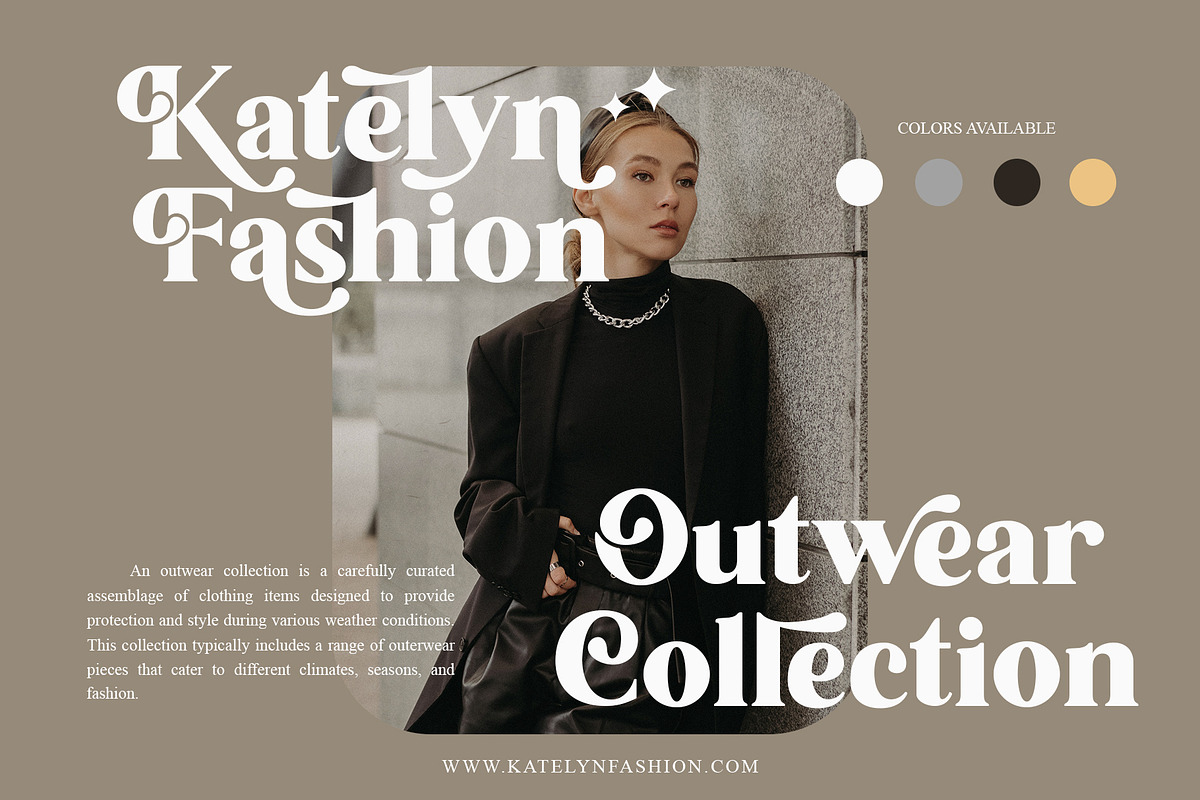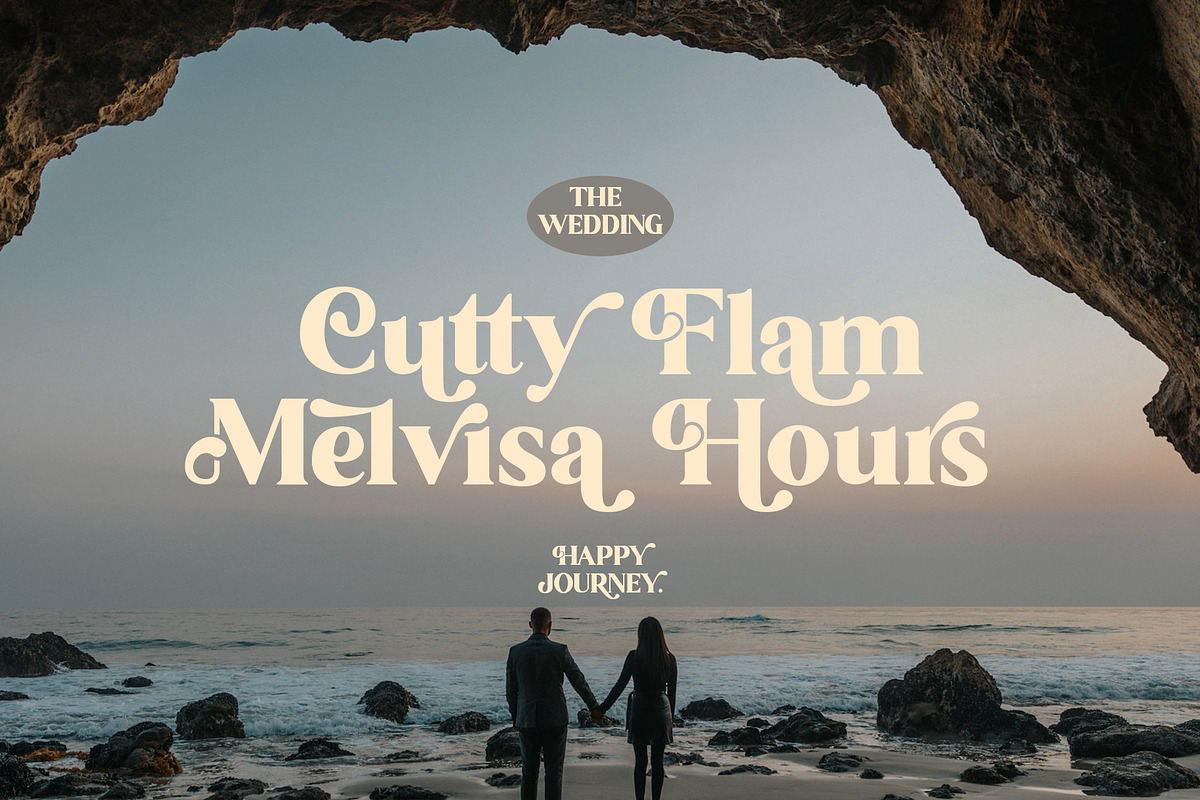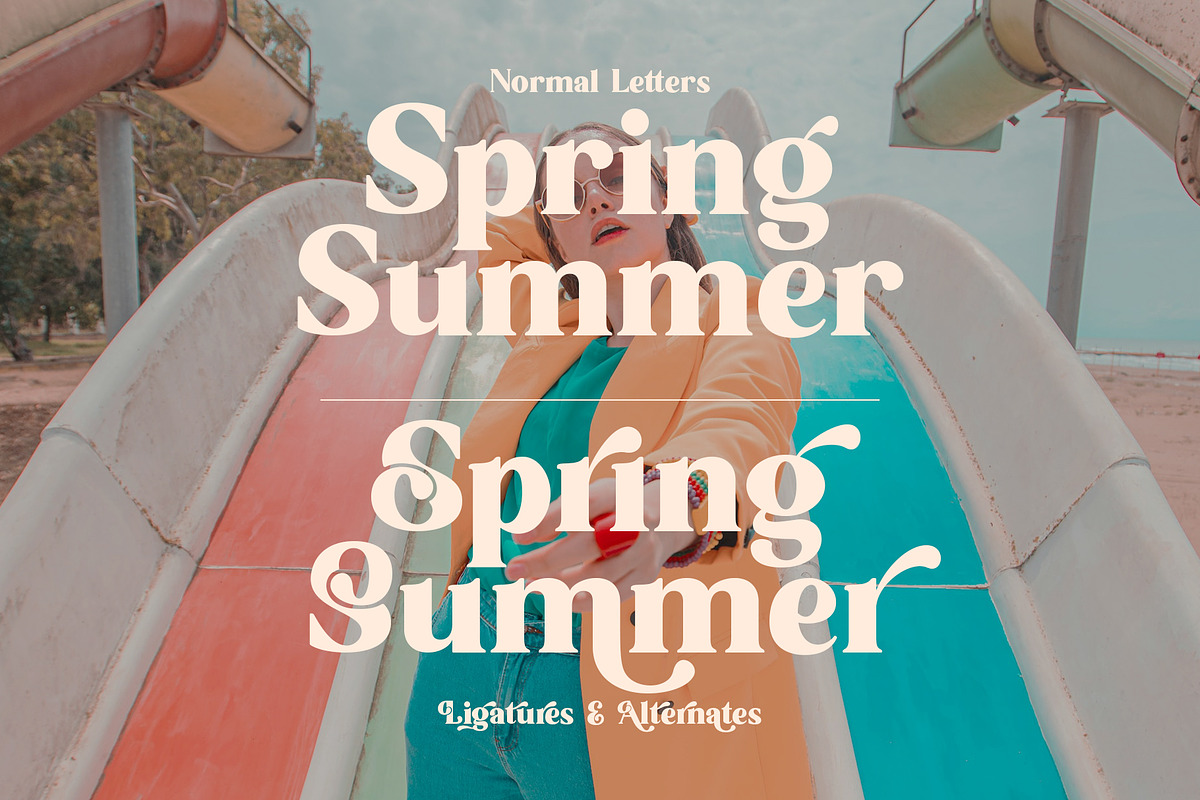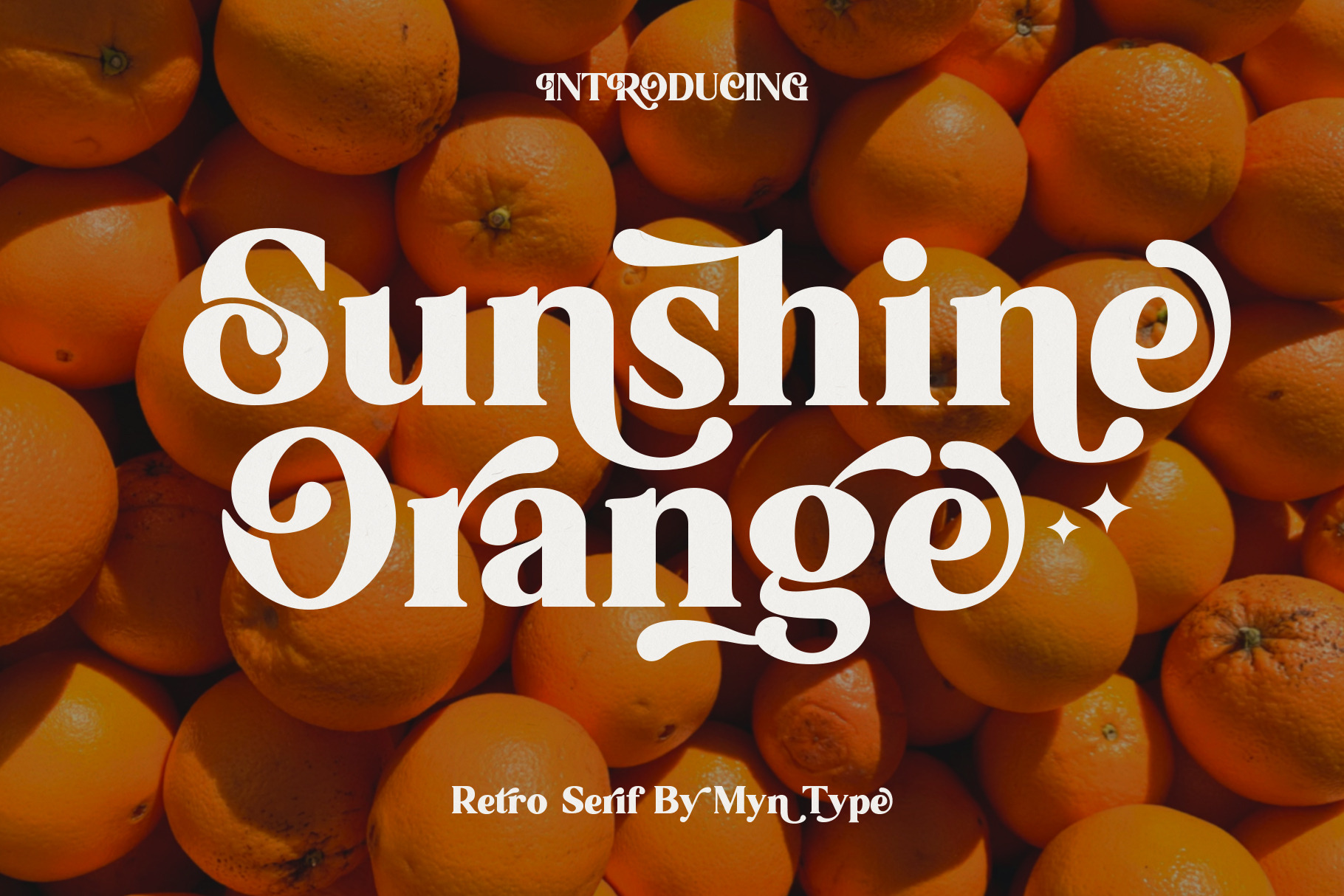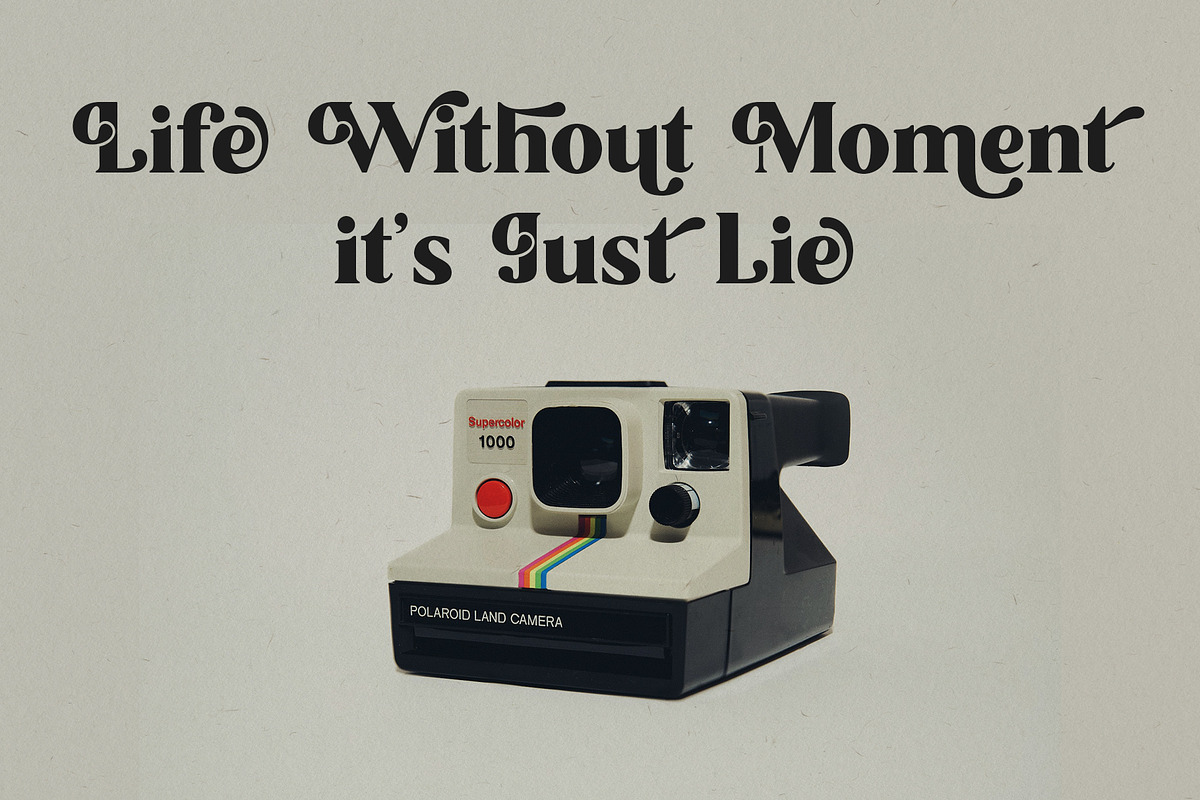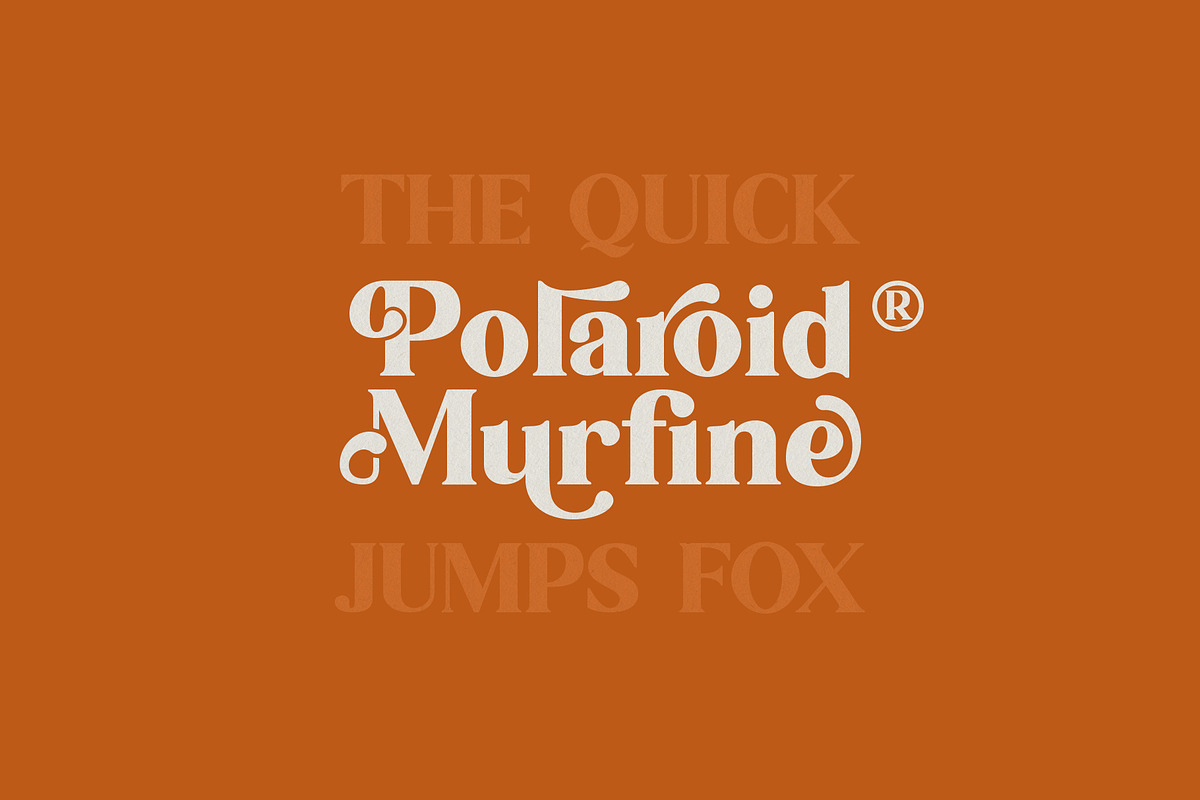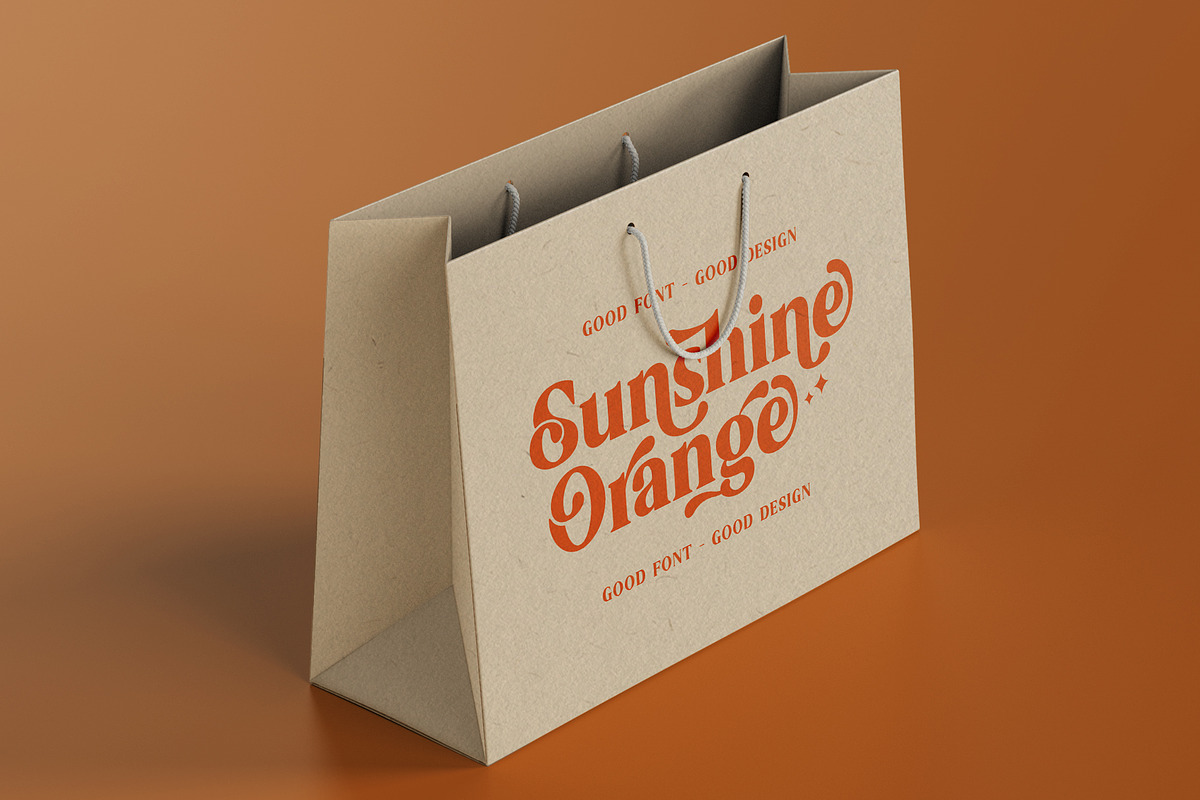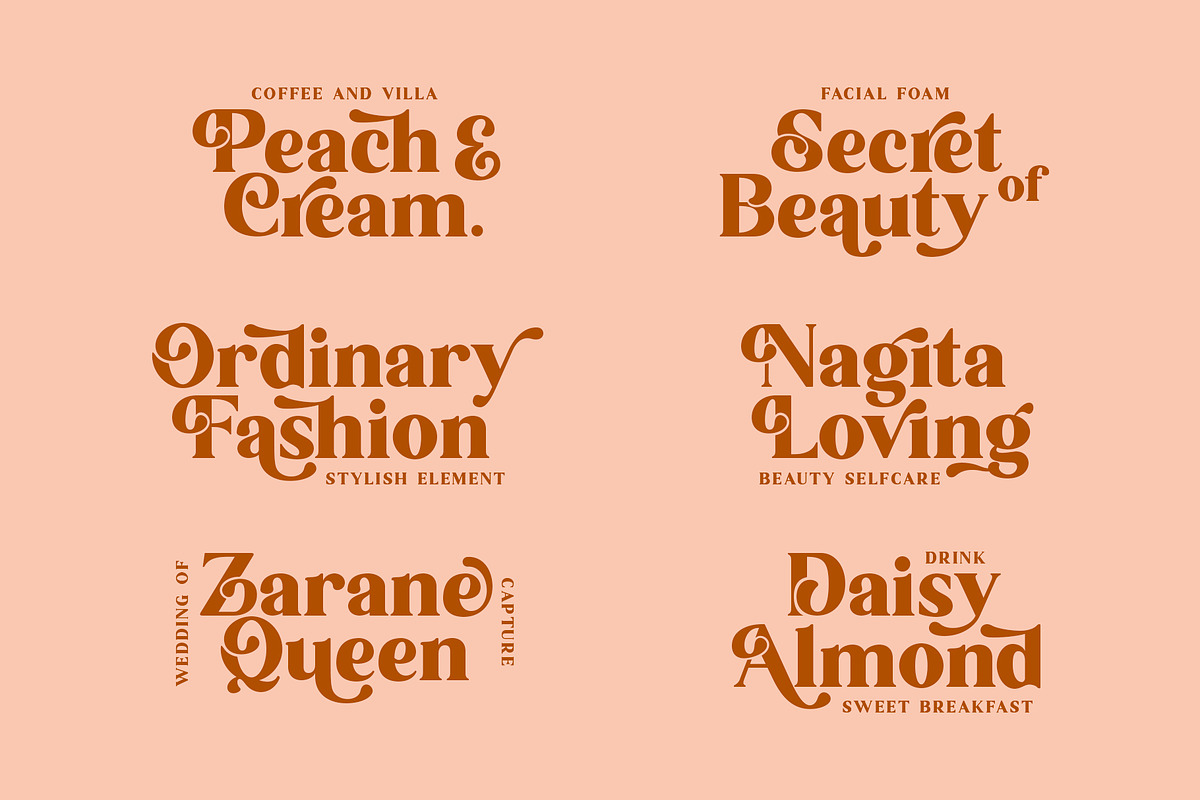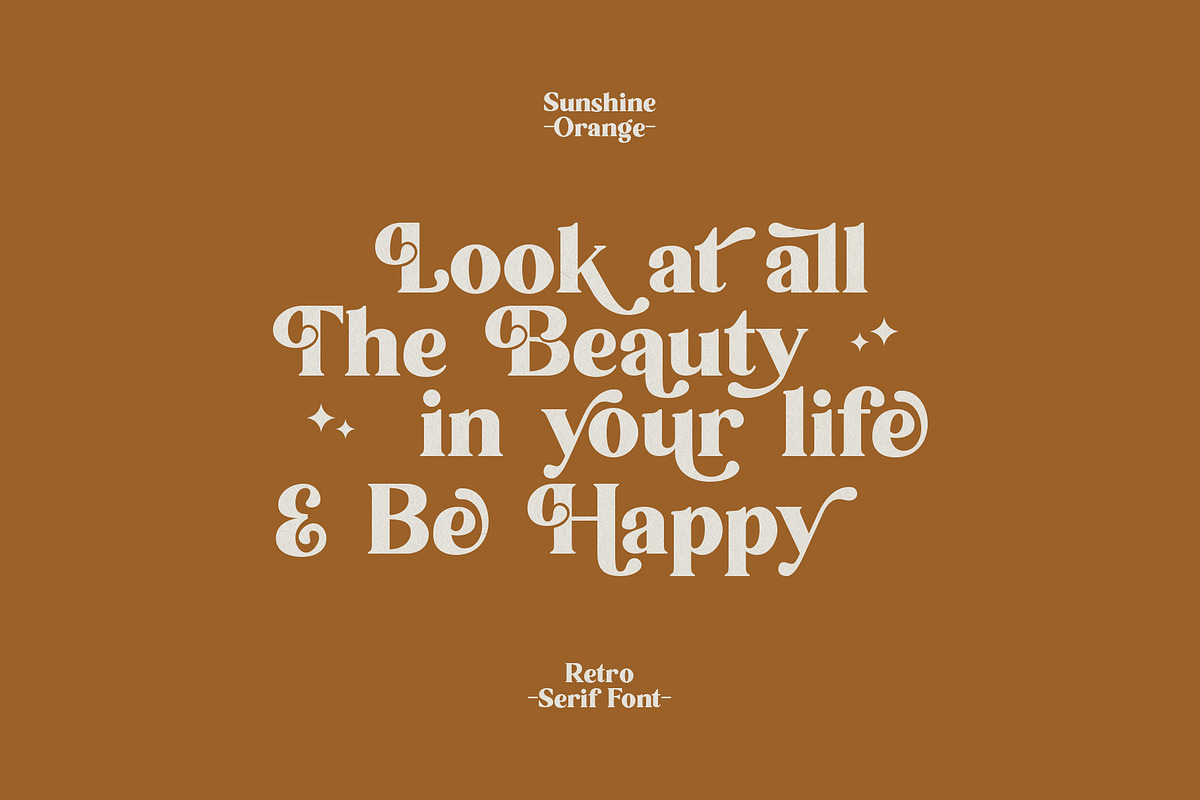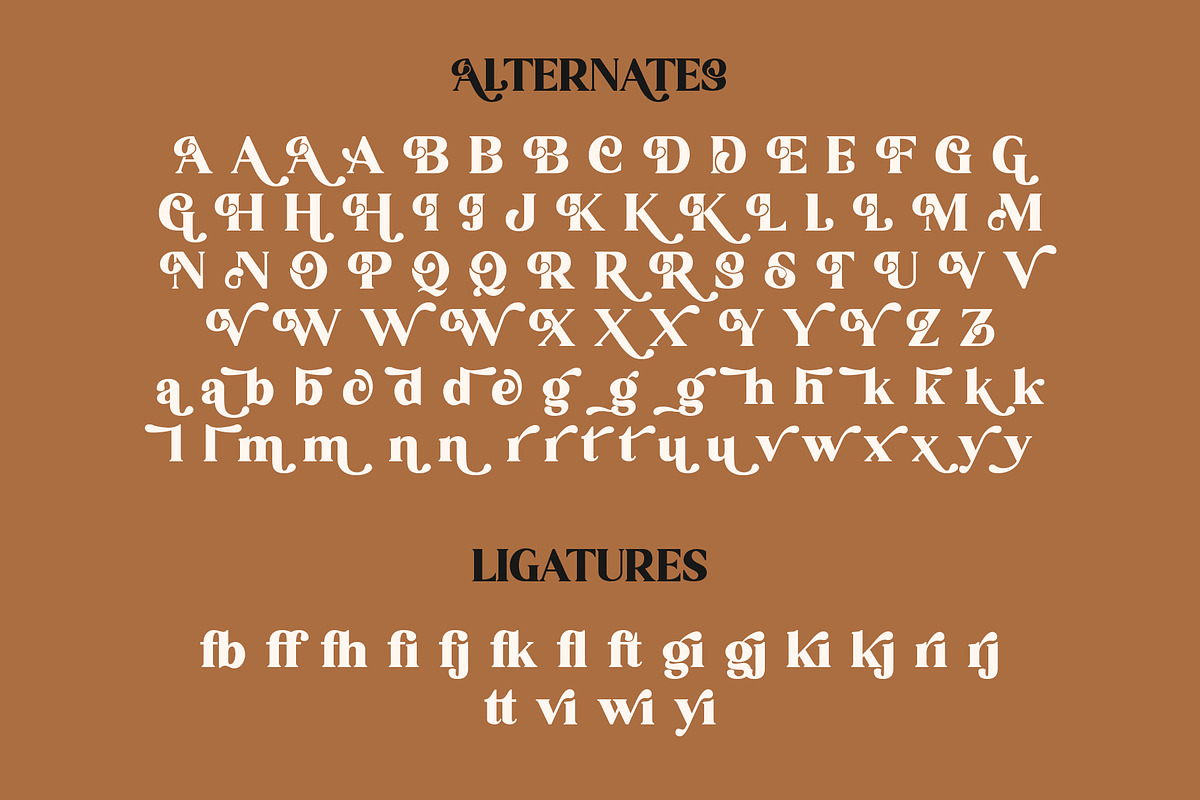
Meet the Sunshine Orange!! 🍊
An font style that draws inspiration from the typography of the past, This font style is known for its distinctive and nostalgic look, characterized by the use of serifs, which are the small decorative strokes or feet at the ends of the letters' main strokes.
Sunshine Orange prominently feature serifs, which give the letters a classic and timeless appearance. This font include decorative elements with the uppercase, lowercase, and ligatures which add flair and uniqueness to the typography. This great for titles, logos, quote, packaging, headings, Sunshine Orange will infuse your project with an unmistakable sense of unique character.